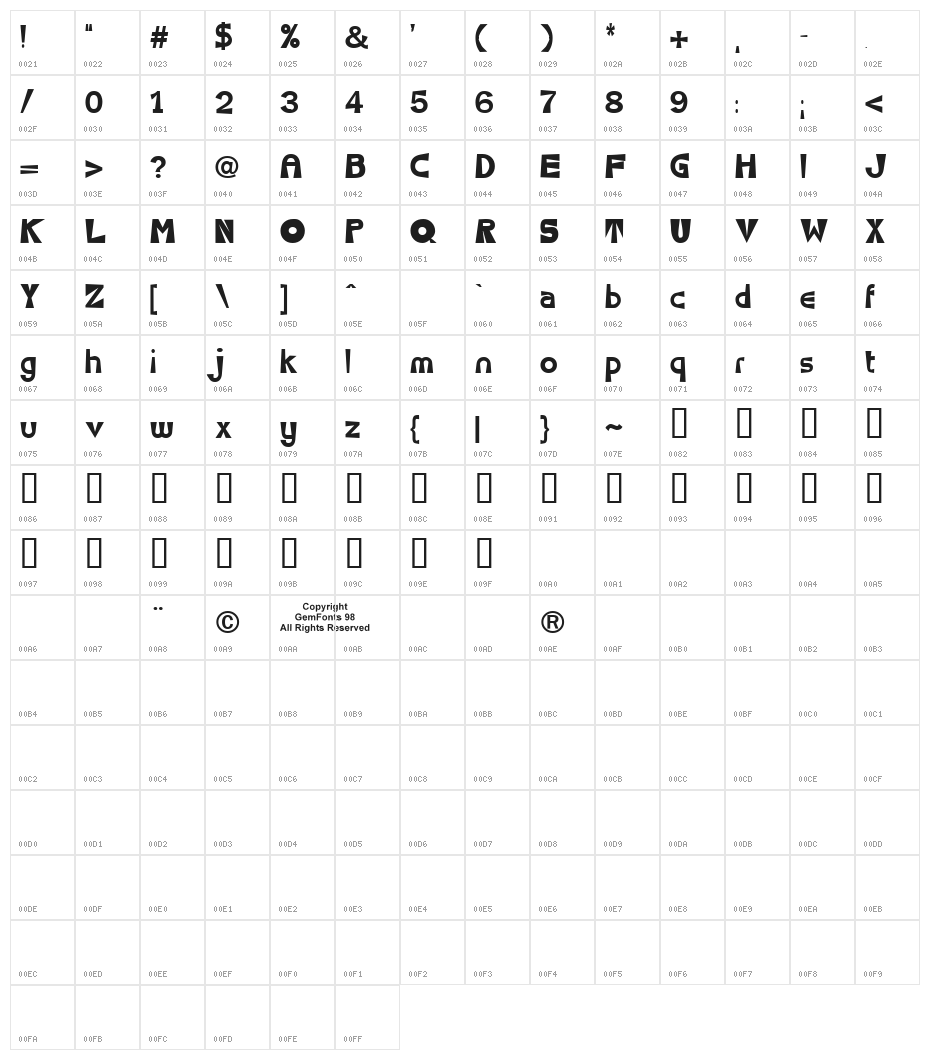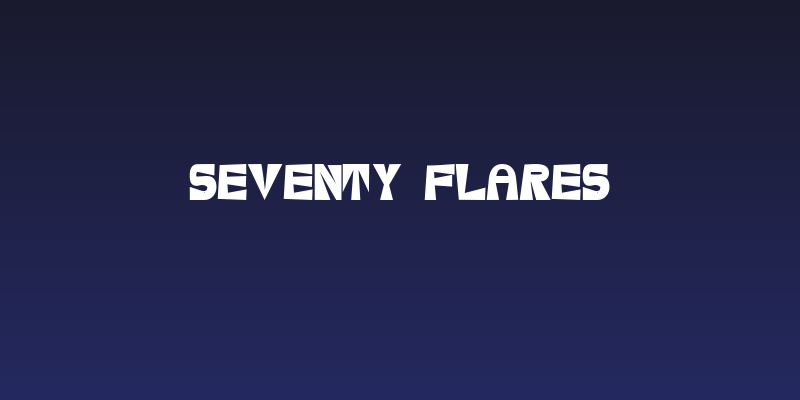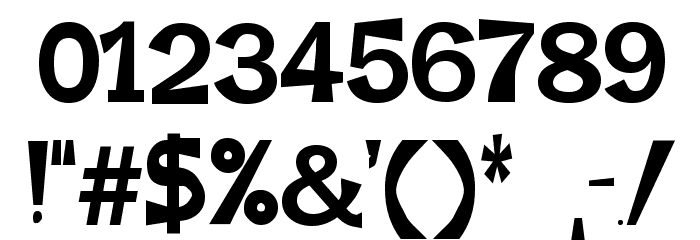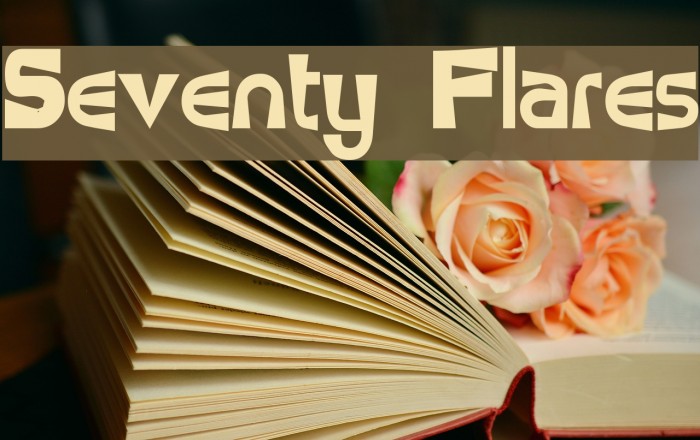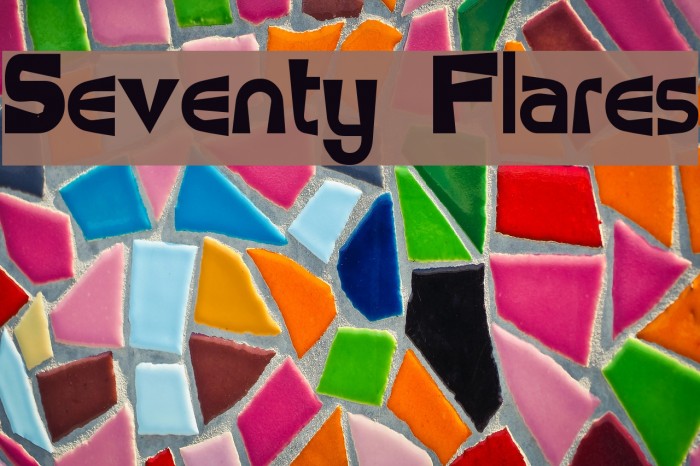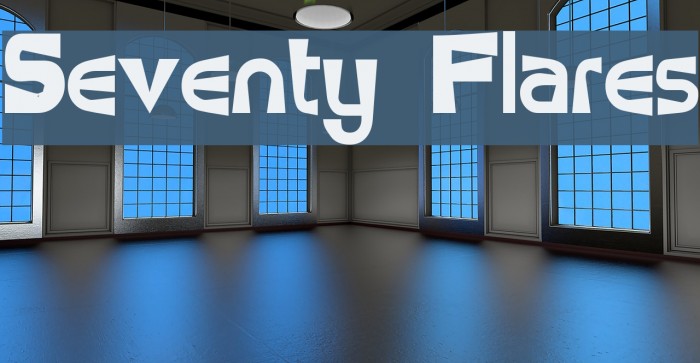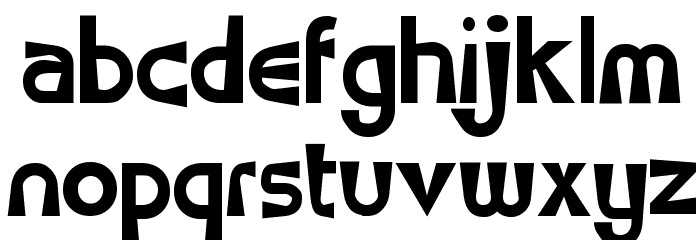
Seventy Flares Font
Seventy Flares Description
This font features a bold and dynamic style with a distinct retro flair. The characters are designed with a playful and slightly exaggerated geometric form, reminiscent of 1970s design aesthetics. The uppercase letters are particularly striking, with wide, angular shapes that create a sense of movement and energy. The lowercase letters maintain the same boldness but with a slightly softer edge, providing a nice contrast. Numbers and special characters follow the same design principles, ensuring consistency throughout. The overall appearance is eye-catching and ideal for making a statement.